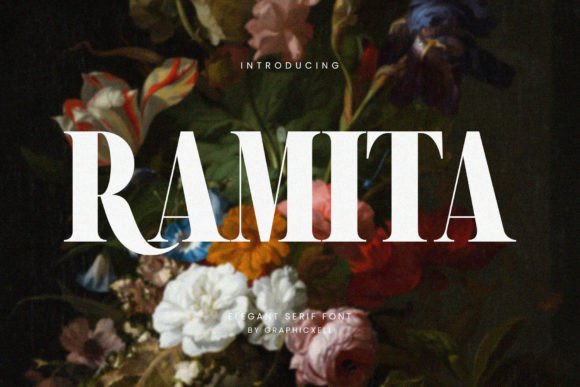
Introducing Ramita Font, the Epitome of Serif Elegance:
In a world saturated with digital clutter, your words deserve a font that not only communicates your message but also elevates it to new heights. Ramita Font, a creation of the renowned Graphicxell, is that font, a serif masterpiece that exudes timeless sophistication and undeniable charm.
With its refined letterforms and graceful serifs, Ramita adds a touch of class and elegance to any design. Think crisp, clean lines that dance upon the page, inviting your readers to immerse themselves in the world you're creating. Whether it's a formal invitation, high-end branding, or an editorial project that demands attention, Ramita Font rises to the occasion, every time.
The Essence of Versatility:
Ramita Font is not merely a font; it's an expression of your creativity. Its versatility knows no bounds, adapting effortlessly to a symphony of design styles. From classic and traditional to modern and minimalist, Ramita Font blends seamlessly, becoming an integral part of your artistic vision.
Craft elegant cover letters that exude professionalism and leave a lasting impression. Design wedding invitations that capture the joy and romance of the occasion. Create business cards that speak volumes about your brand's sophistication and attention to detail. With Ramita Font as your typographic companion, the possibilities are endless.
Experience the Ramita Difference:
Ramita Font isn't just another font; it's an experience. It's the feeling of confidence that comes from knowing your words are presented in the best possible light. It's the satisfaction of seeing your designs come to life, adorned with a font that commands attention without overpowering the content.
With Ramita Font, you're not just downloading a font; you're investing in a typographic legacy. A font that will elevate your designs, captivate your audience, and leave an indelible mark on the world.